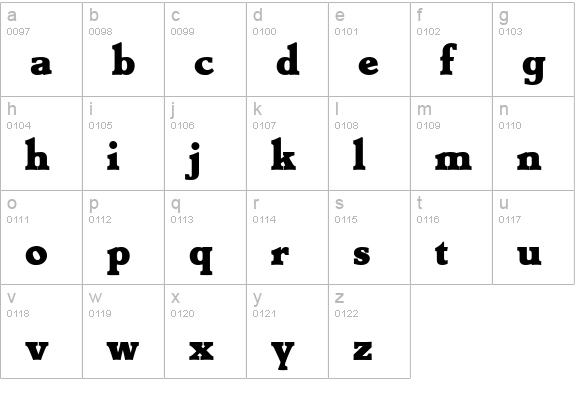
Tracto Display SSi Font Details
Tracto Display SSi font is a captivating and versatile typeface that is perfect for making a bold statement. With its strong and impactful letterforms, this font is sure to grab attention and leave a lasting impression. The Tracto Display SSi font is carefully crafted with a unique blend of modern and retro influences, resulting in a design that is both timeless and contemporary. Its clean lines and sharp edges give it a sleek and sophisticated appearance, making it ideal for a wide range of creative projects. Whether you're designing a logo, creating eye-catching headlines, or crafting striking advertisements, Tracto Display SSi font is the perfect choice. Its bold and commanding presence will help your text stand out and command attention. What sets Tracto Display SSi font apart is not only its stunning design but also the fact that it is available for free download at FontsMarket.com. This means that you can easily access and utilize this exceptional font without any cost or restrictions. Tracto Display SSi font offers a wide range of characters and variations, allowing you to explore different styles and create unique typographic compositions. Its extensive glyph set includes uppercase and lowercase letters, numbers, punctuation marks, and special characters, ensuring that you have everything you need to bring your creative vision to life. So whether you're a professional designer, a digital artist, or simply someone who appreciates the power of typography, Tracto Display SSi font is a must-have addition to your font collection. Its striking visual appeal and the fact that it is freely available for download make it a valuable resource for any creative project. Explore its potential and unleash your creativity with Tracto Display SSi font today!